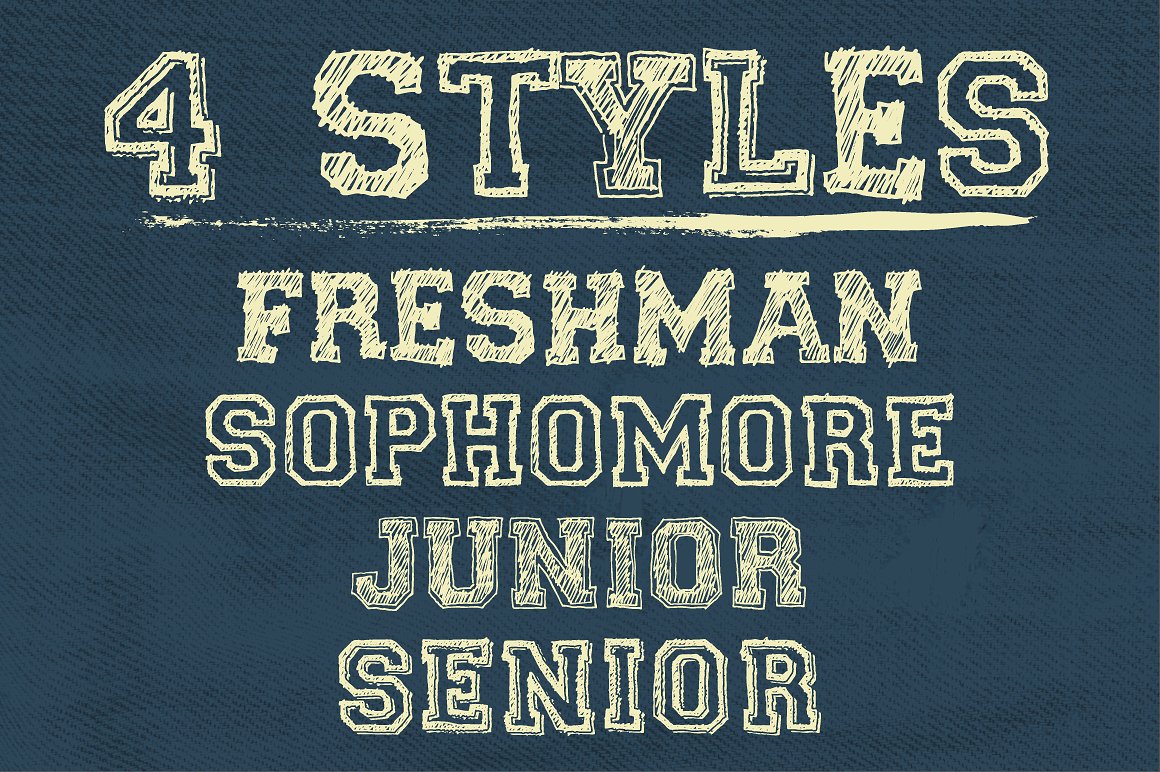
College Style Fonts. Web download quality, free fonts for your college assignments! Web showing results for ‘college’ families {{message.actionlabel}} {{message.actionlabel}}.
Web 25+ best college fonts & varsity fonts (free & premium) 1. Web graduate is a high quality example of the classic college block style of lettering used across very campus in the usa. In fancy > old school. Get the perfect font for any project with our selection of college fonts. Web showing results for ‘college’ families {{message.actionlabel}} {{message.actionlabel}}. Web download quality, free fonts for your college assignments!
Web showing results for ‘college’ families {{message.actionlabel}} {{message.actionlabel}}. Web graduate is a high quality example of the classic college block style of lettering used across very campus in the usa. Web 25+ best college fonts & varsity fonts (free & premium) 1. Get the perfect font for any project with our selection of college fonts. Web showing results for ‘college’ families {{message.actionlabel}} {{message.actionlabel}}. Web download quality, free fonts for your college assignments! In fancy > old school.